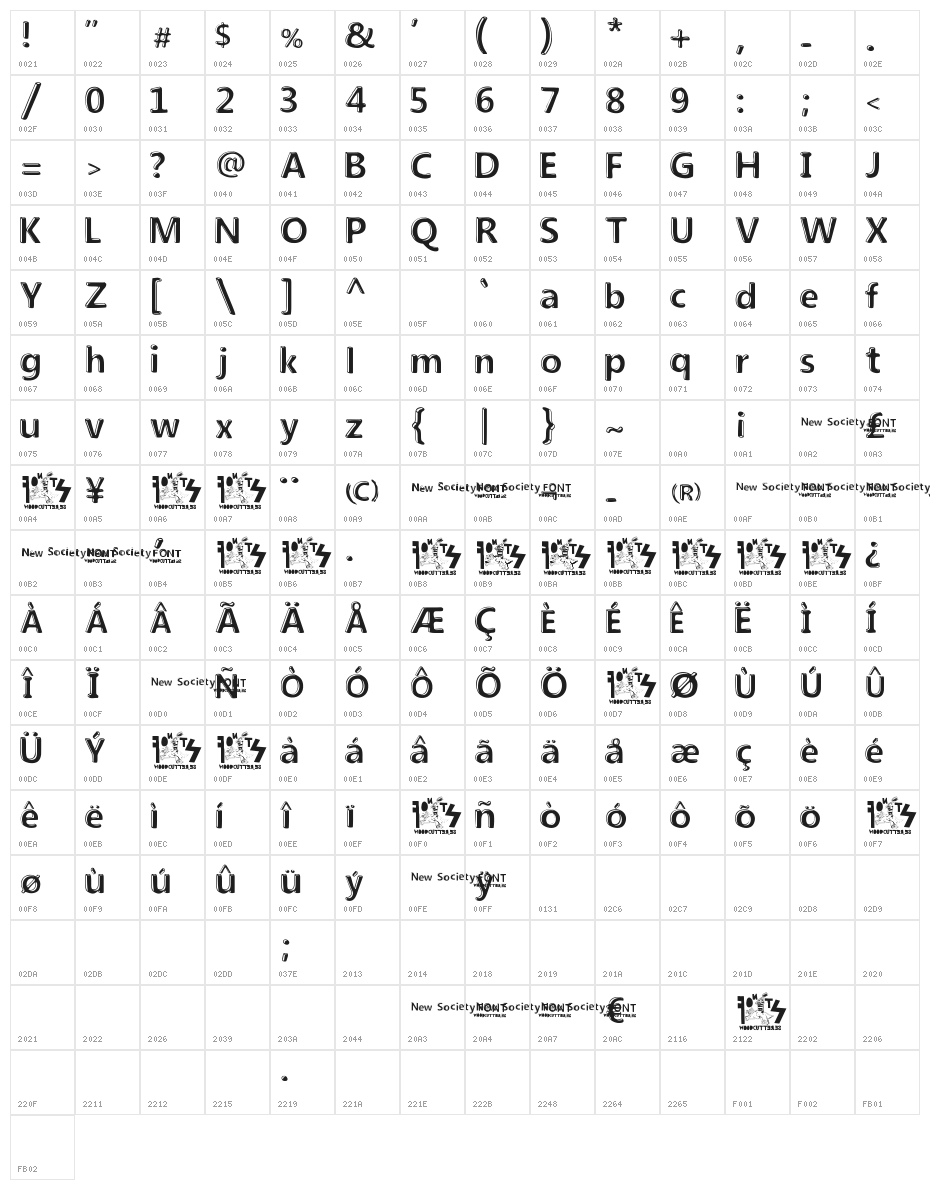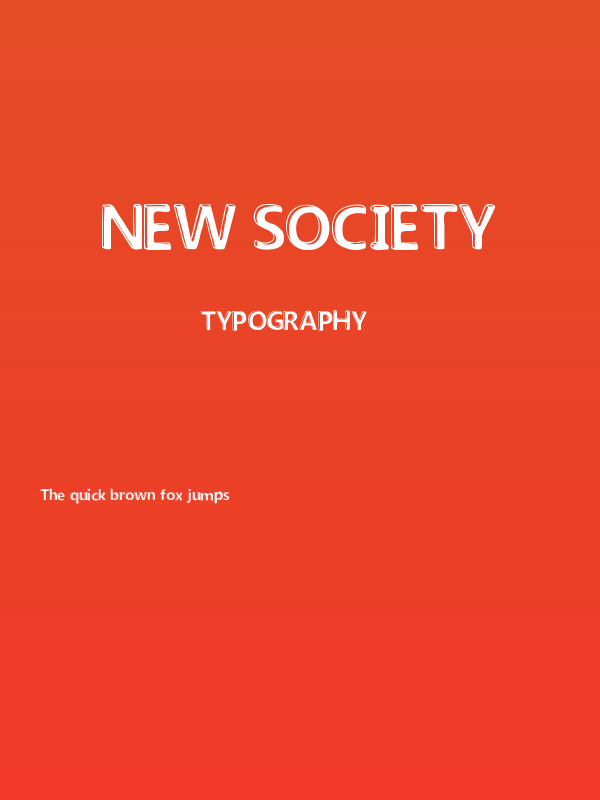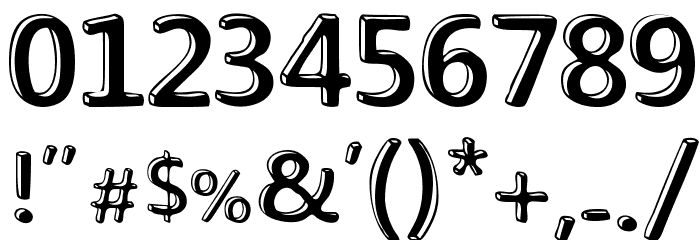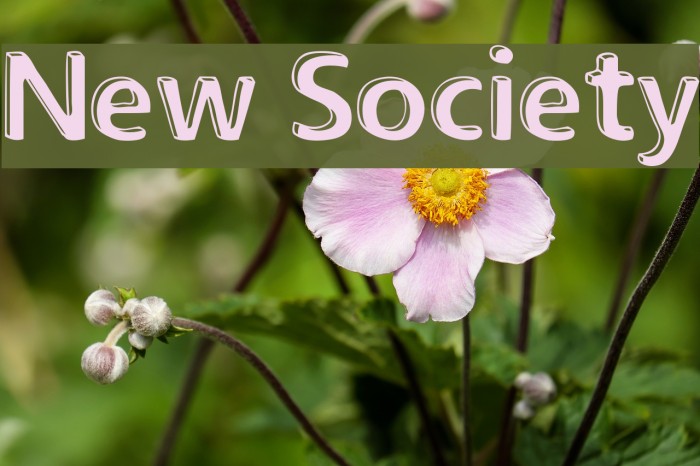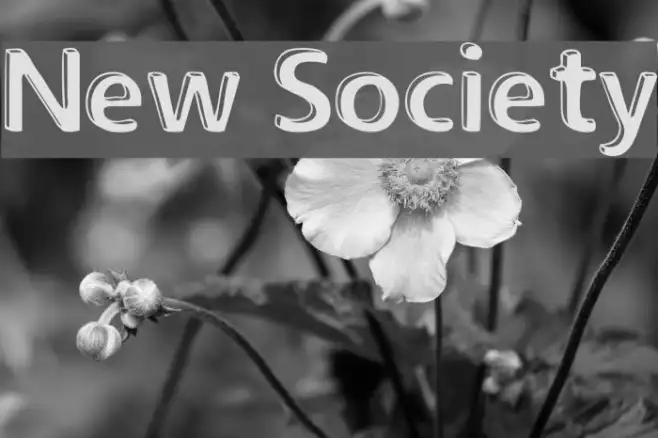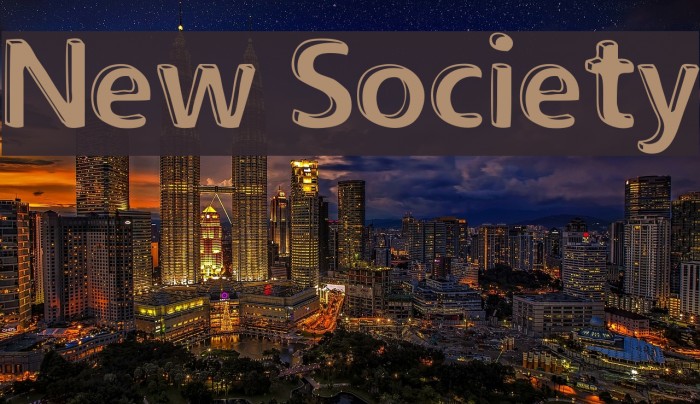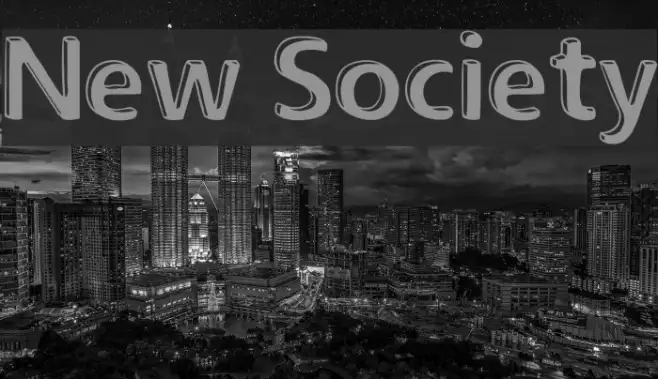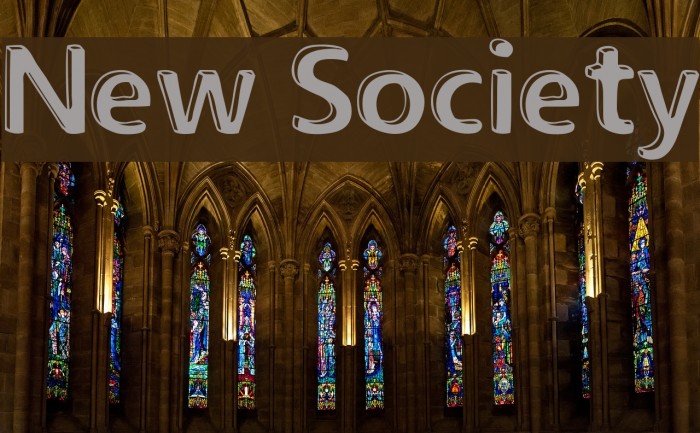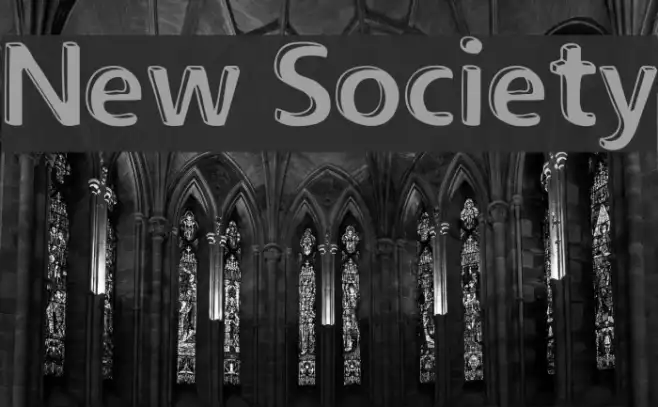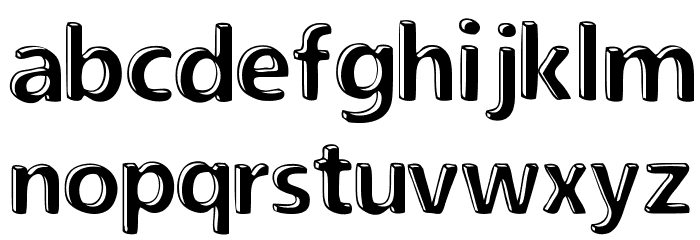
New Society Font
This font features a bold and rounded style with a three-dimensional effect, giving it a playful and dynamic appearance. The characters are well-defined with a slight shadow that adds depth, making them stand out. The uppercase and lowercase letters maintain a consistent style, with smooth curves and clean lines. The numerals are equally bold and rounded, ensuring readability. Special characters are included and match the overall aesthetic, making this font versatile for various uses.
| Overall Style | Playful, Modern |
| Proposed Projects | Ideal for children's books, playful branding, posters, and creative digital content. |